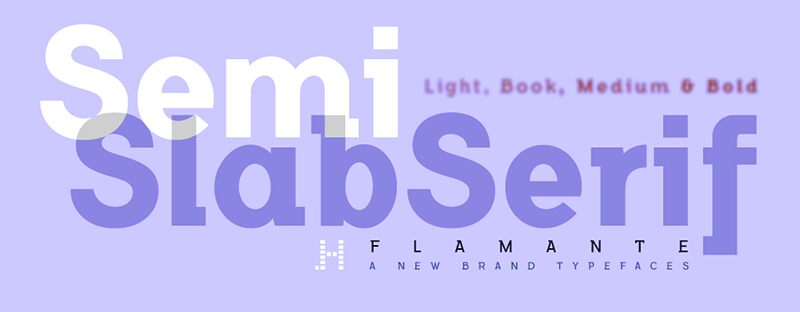
Flamante SemiSlab is a family of eight typefaces with thick square serifs and SemiSerif finish are presented in four weights: Light, Book, Medium and Bold and their corresponding italic versions.
They are exclusive types, corporate, for any type of advertising design project, catalogs, logos, advertising, magazines or publications in general. They include the Bitcoin symbol.
Flamante SemiSlab Medium
Flamante is a new family of SemiSlab Serif fonts with four weights: Light, Book, Medium and Bold and their corresponding italic versions. Swiss-style fonts built on a 4 × 6 building grid formed with 144 x 119 units, two digits taken from the fibonacci and Perrin sequences, these measures define the width and height of the vertical and horizontal antlers and the overall proportion of the font. The metrics and kerning have been carefully set up for fluent reading in paragraph texts.